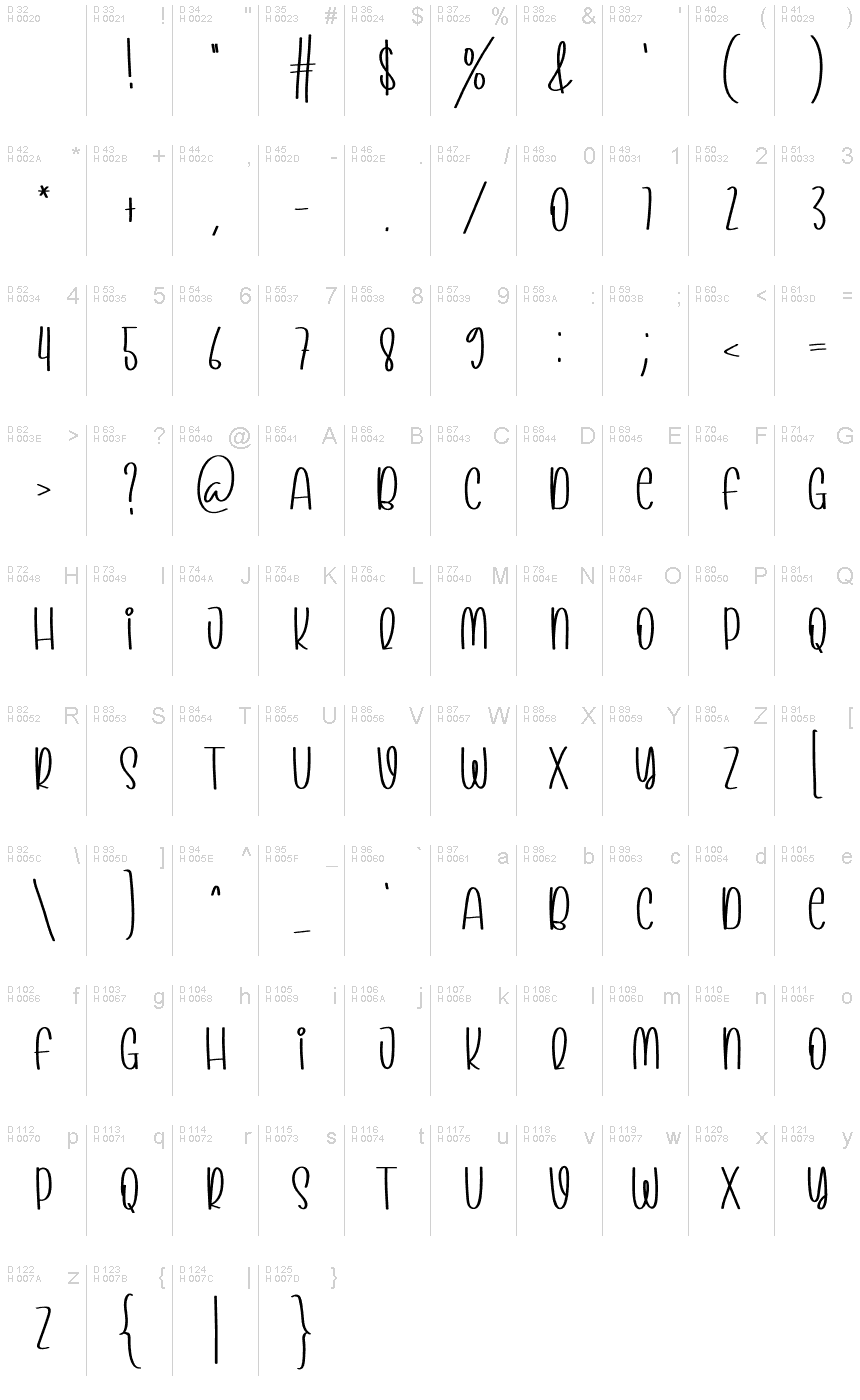
Planner Story
Planner Story, crafted by the creative minds at Scratchones, is a handwritten font that brings a touch of personal charm to every project it graces. With its semi-light weight, this typeface strikes a perfect balance between readability and stylistic flair, exuding an aesthetic that is both approachable and artistically engaging. The flowing lines and organic structure of Planner Story echo the spontaneity of ink on paper, making it an ideal choice for designs that call for a human touch.
From invitations and greeting cards to branding and editorial design, Planner Story's versatile appearance ensures it can adapt seamlessly across various mediums. The casual elegance of this font lends itself well to creative projects aiming for a relaxed yet sophisticated vibe. Whether you're penning a heartfelt message or conceptualizing a boutique brand's identity, Planner Story stands ready to tell your tale with authenticity and grace.